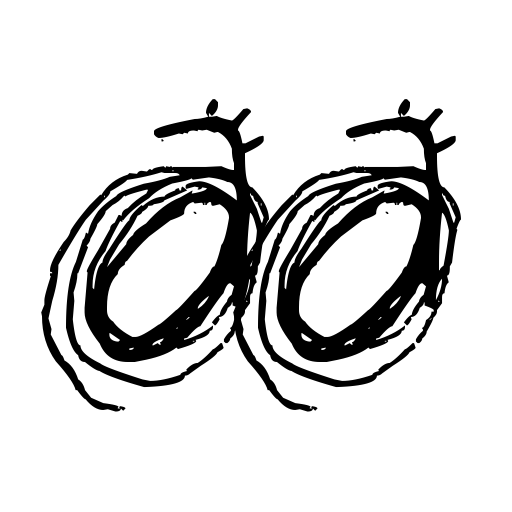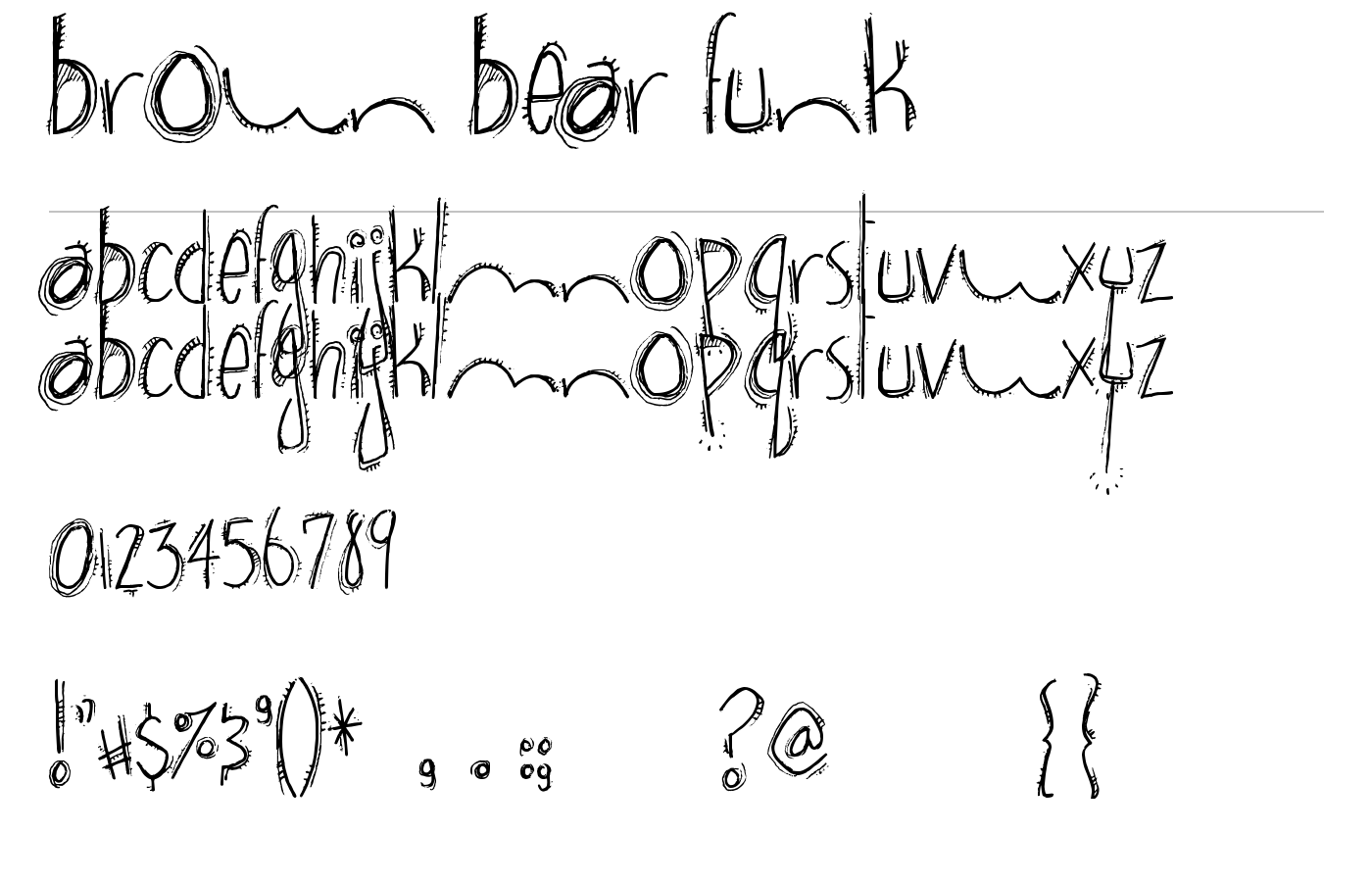
Brown Bear Funk is a quirky, hand-drawn script font with a playful and slightly rough texture that gives it a whimsical, artistic vibe. Its tall, narrow letterforms and sketchy, textured strokes evoke a casual, creative feel perfect for expressive, informal designs like posters, album covers, and playful branding. This font works best where a unique, hand-crafted look is desired to convey personality and fun without worrying about perfect legibility.
brown bear funk Font
About brown bear funk Font